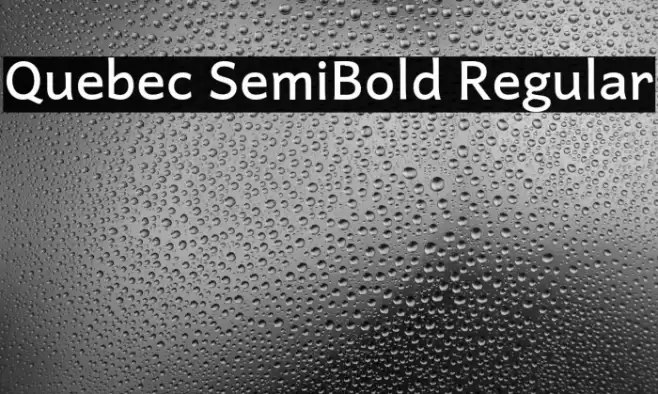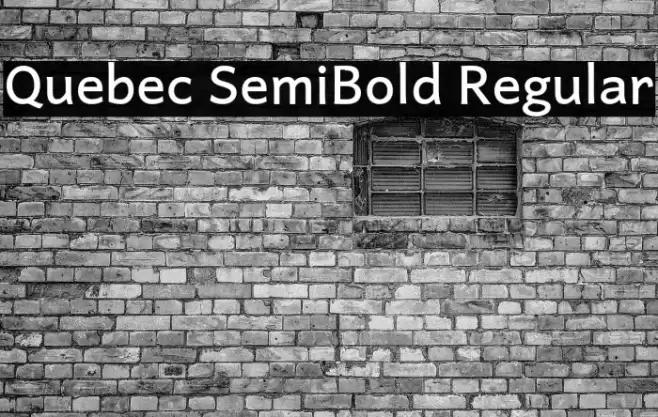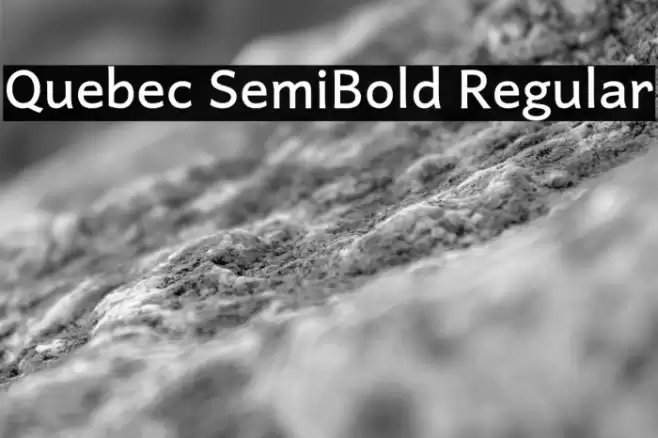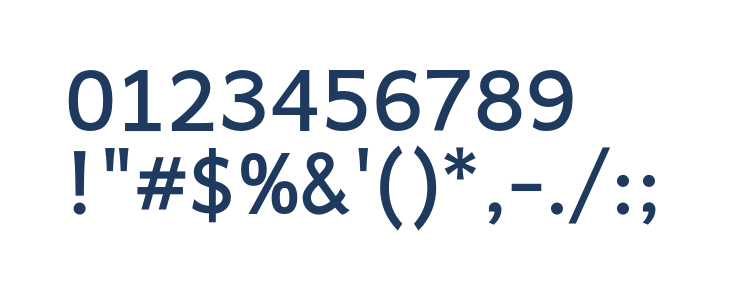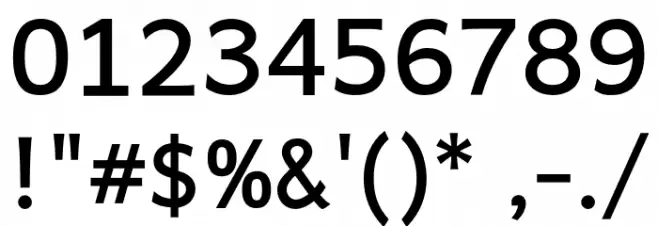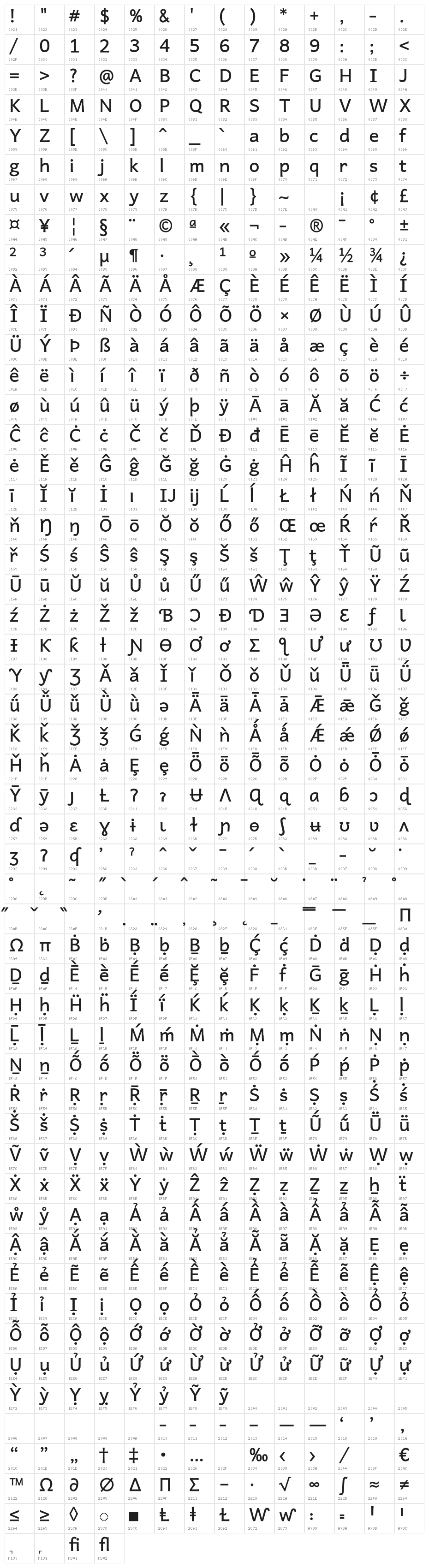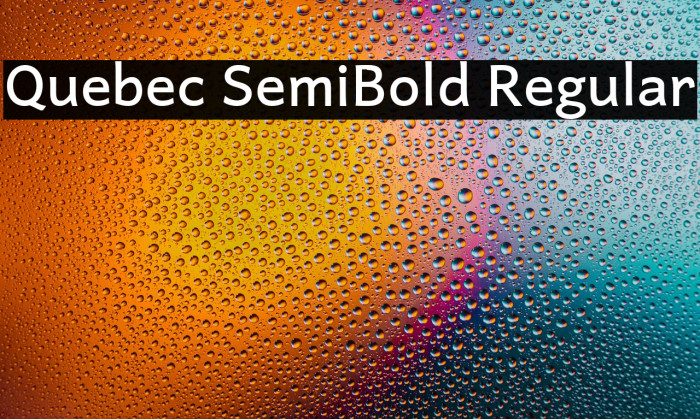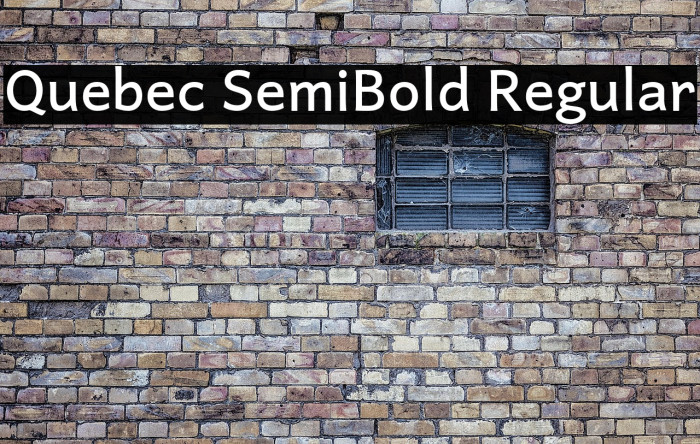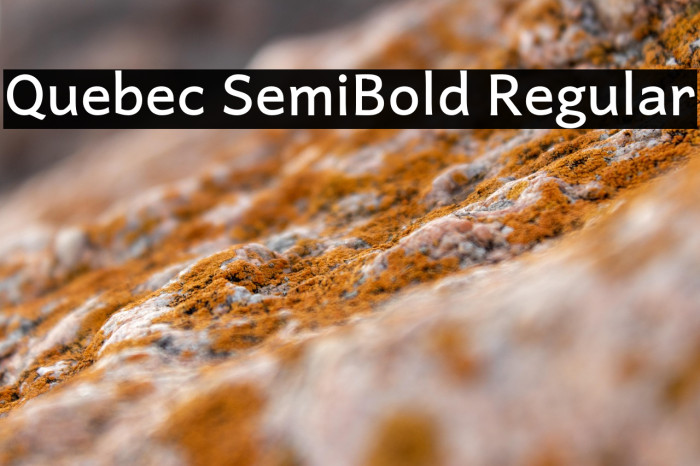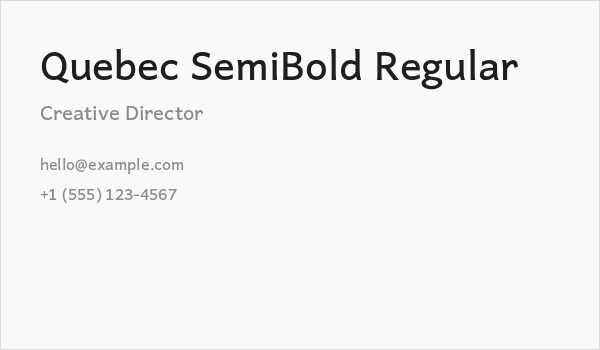
Quebec SemiBold Regular Font
Quebec SemiBold Regular Description
This font features a clean and modern sans-serif style with a semi-bold weight, offering a balanced and professional appearance. The characters are well-proportioned, with consistent stroke widths that provide a uniform look across both uppercase and lowercase letters. The numerals are clear and easily distinguishable, making them suitable for various applications. Special characters are designed with simplicity and clarity in mind, ensuring they integrate seamlessly with the rest of the typeface. The overall design is versatile, making it suitable for both digital and print media.
A modern sans-serif font with semi-bold weight and uniform stroke widths from Sans Serif fonts.
- Proposed Projects: Ideal for corporate branding, website headers, editorial design, and advertising materials.